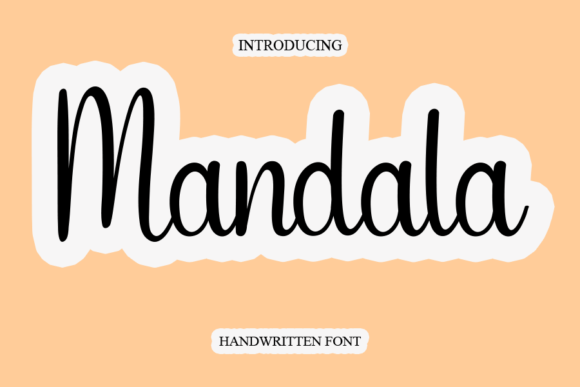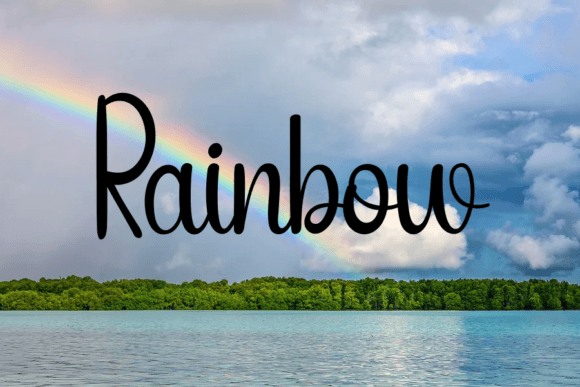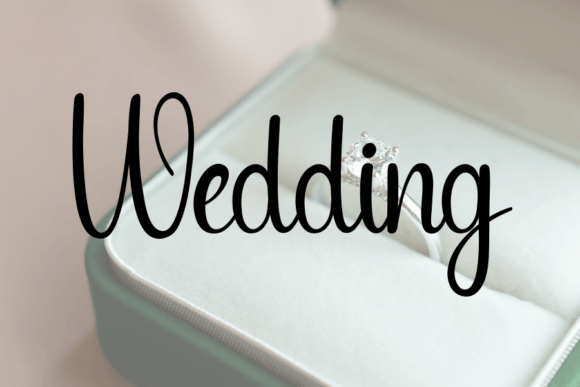
About Mandala Font
Mandala is a captivating and visually appealing handwritten font that embodies sweetness and beauty in every stroke. With characters that gracefully dance along the baseline, this font exudes a unique and enchanting charm that has the power to infuse a touch of luxury into any design project you embark upon.
The font’s sweet and beautiful style adds an element of elegance and artistic sophistication to your creative work. Whether you’re in the process of designing invitations, crafting branding materials, or engaging in any other creative project, Mandala effortlessly introduces a sense of refinement and individuality that captures the viewer’s attention.
Mandala’s whimsical characters, with their graceful dance along the baseline, make it a versatile choice that can seamlessly adapt to a wide array of design themes and concepts. This adaptability allows it to inject a sense of creativity and uniqueness into your projects, making them truly stand out from the crowd.
With a total of 350 words, it’s important to emphasize that Mandala is not just a font; it’s a potent creative tool that possesses the ability to bring forth a touch of luxury and artistry to your design endeavors. Its distinctive style and dancing characters make it a valuable addition to your font library, enabling you to infuse your work with an elegant and creative spark that resonates with your audience.
Incorporate Mandala into your creative arsenal and observe as your design projects come to life with a captivating dash of artistic beauty. Whether you’re designing for personal or professional purposes, Mandala is the font that can help you craft visual masterpieces that leave a lasting impression.